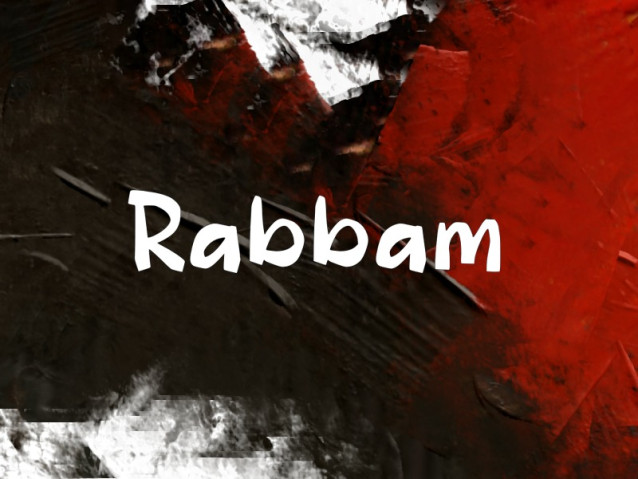
Rabbam Font
Rabbam Font is a simple and modern display font suitable for quotes, logos, headings, titles, and many more. Use it on any of your creative projects, and your designs will become outstanding!